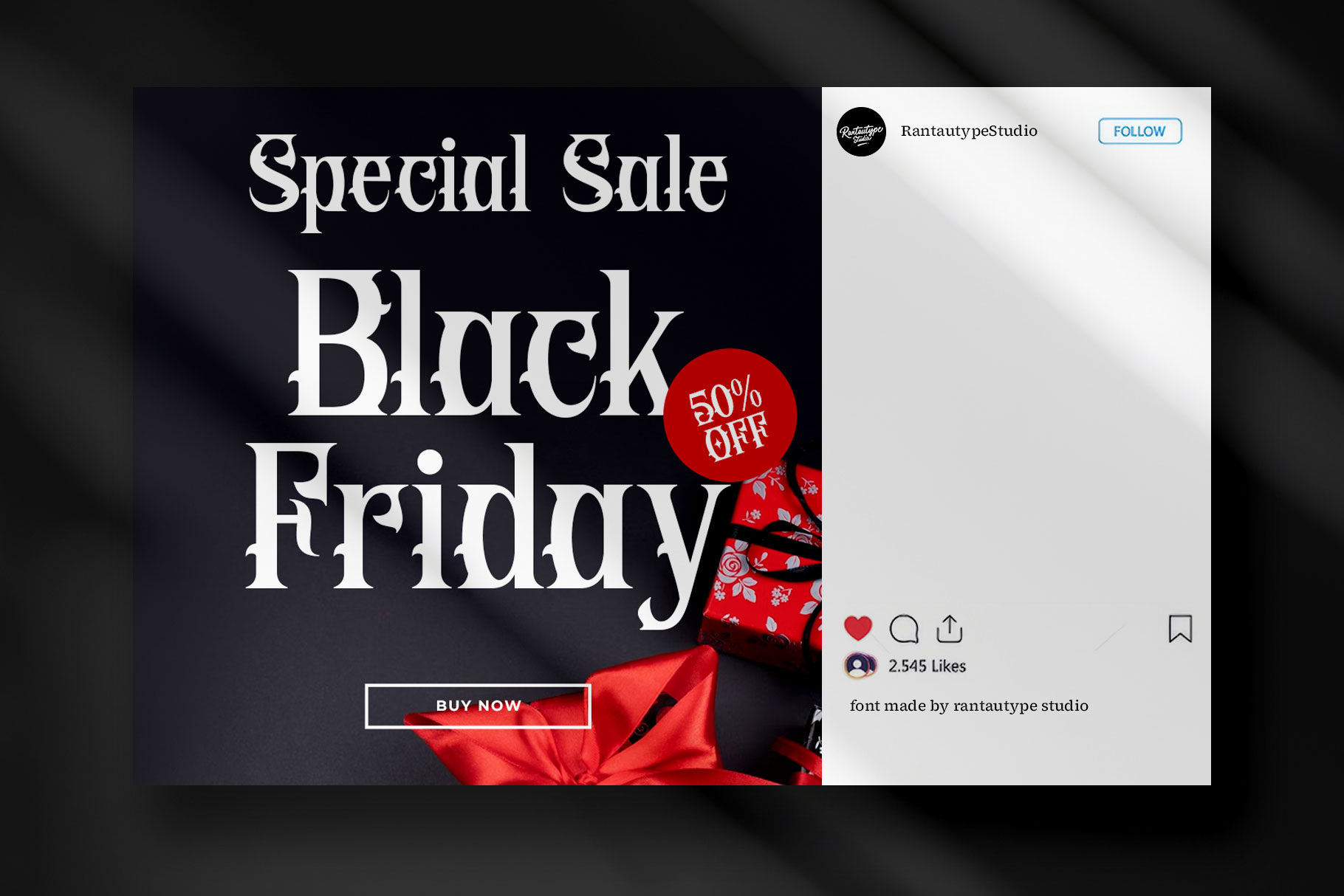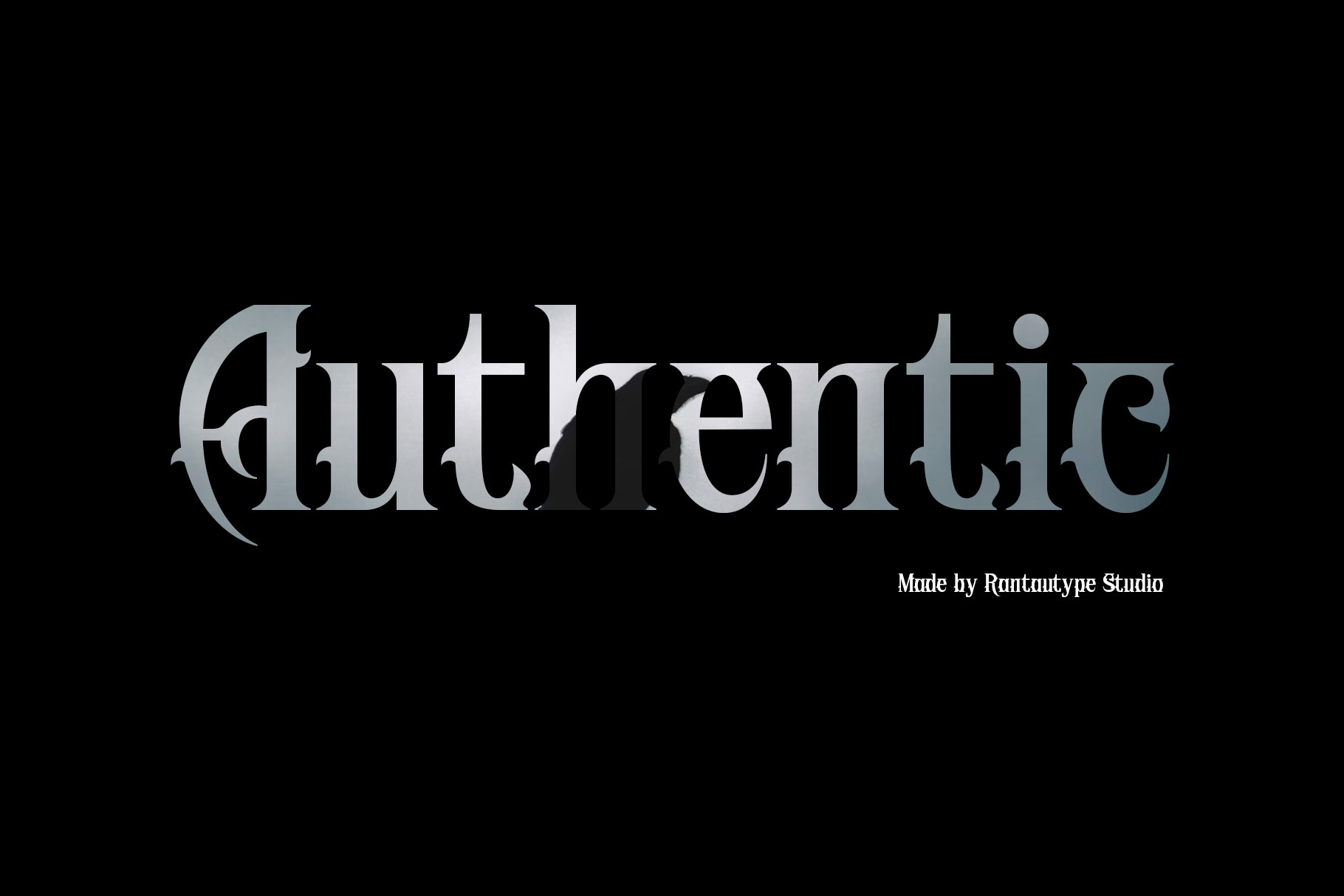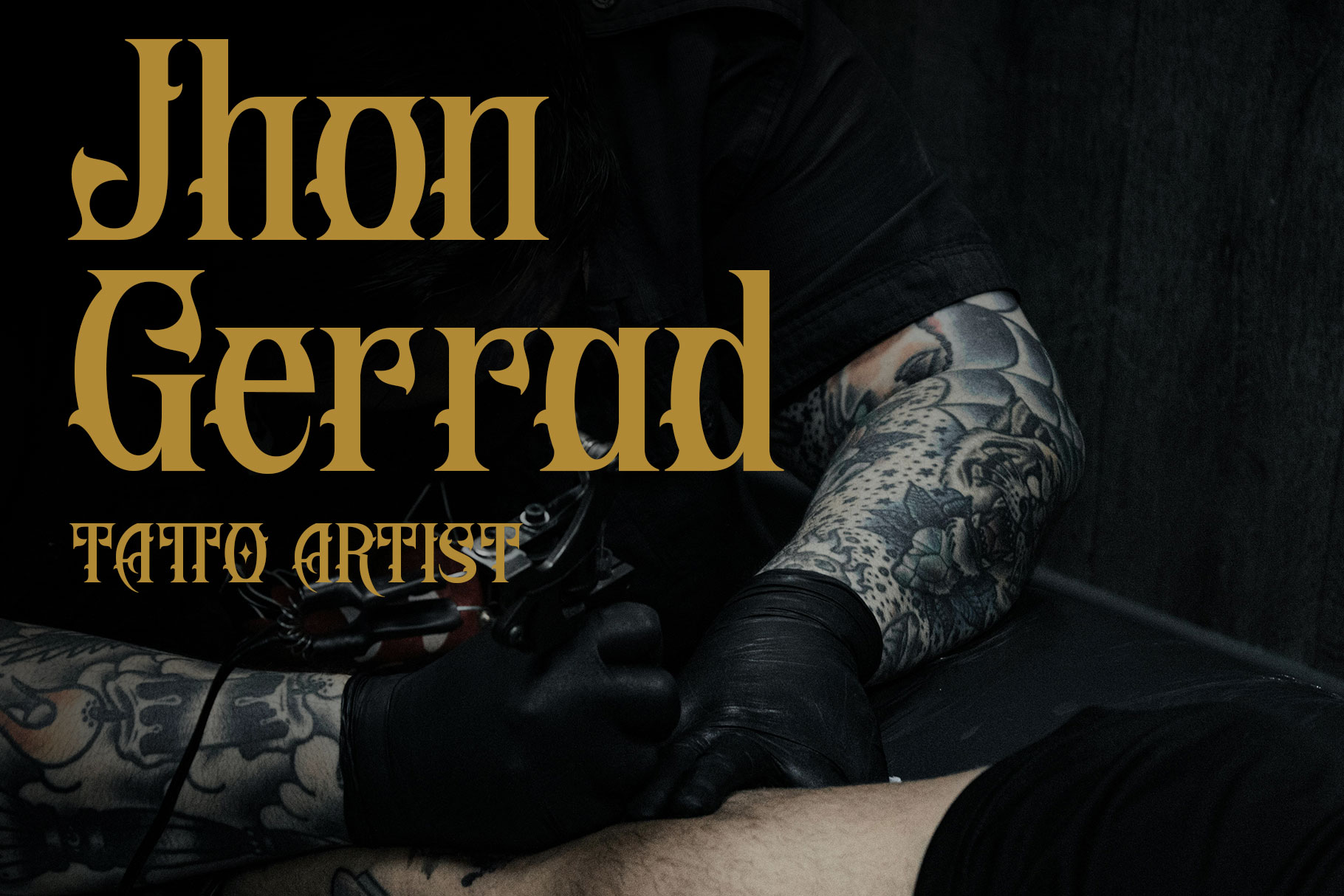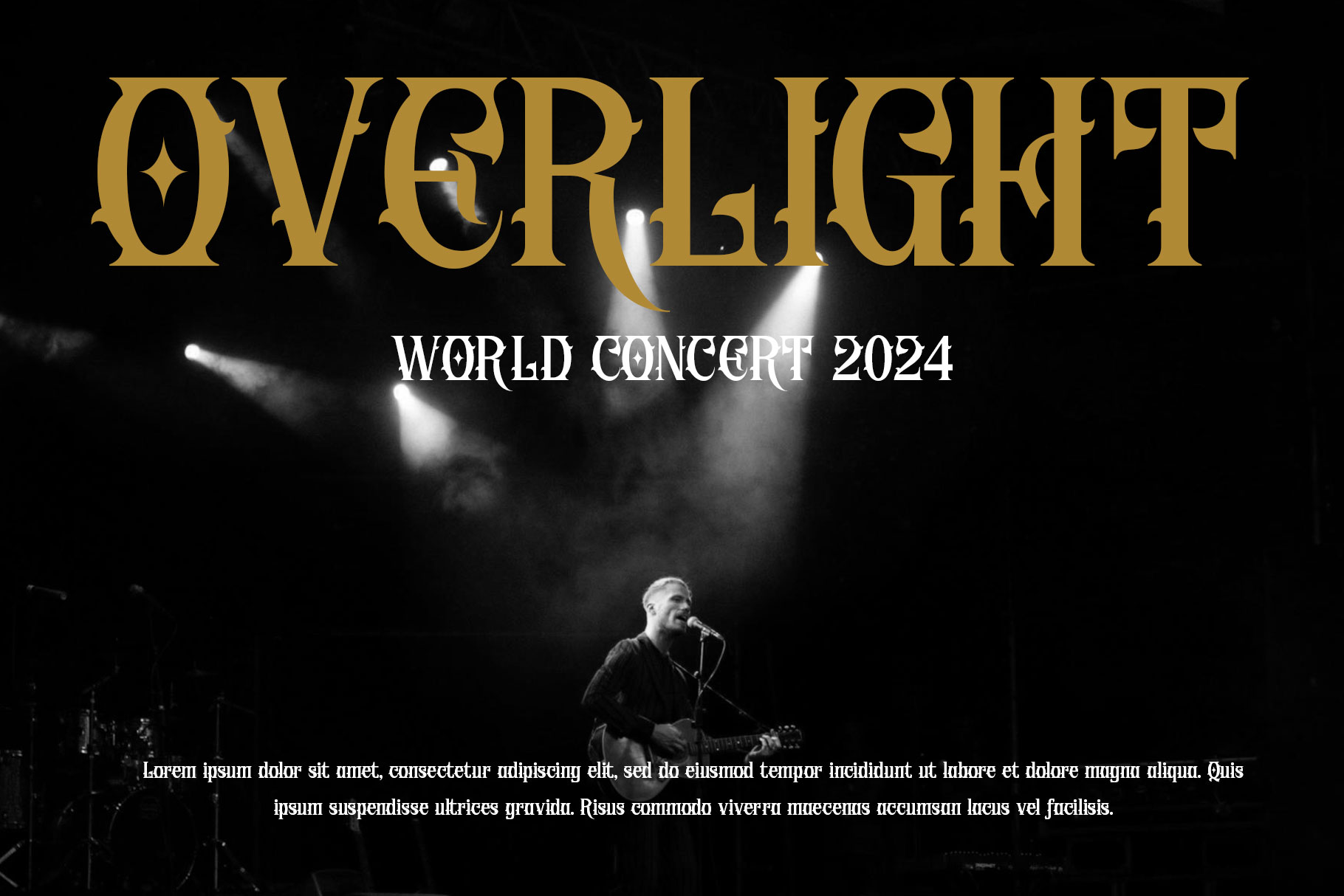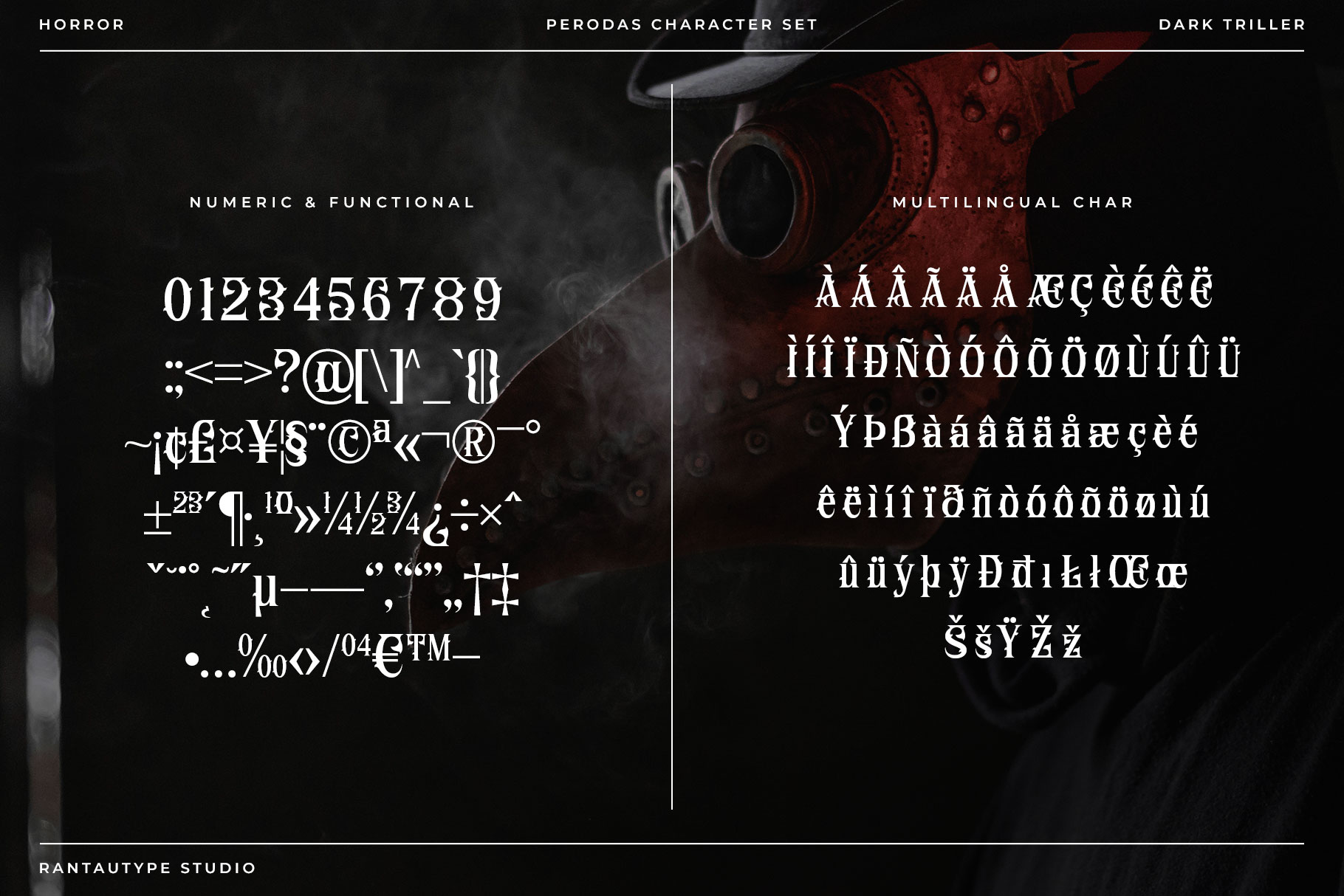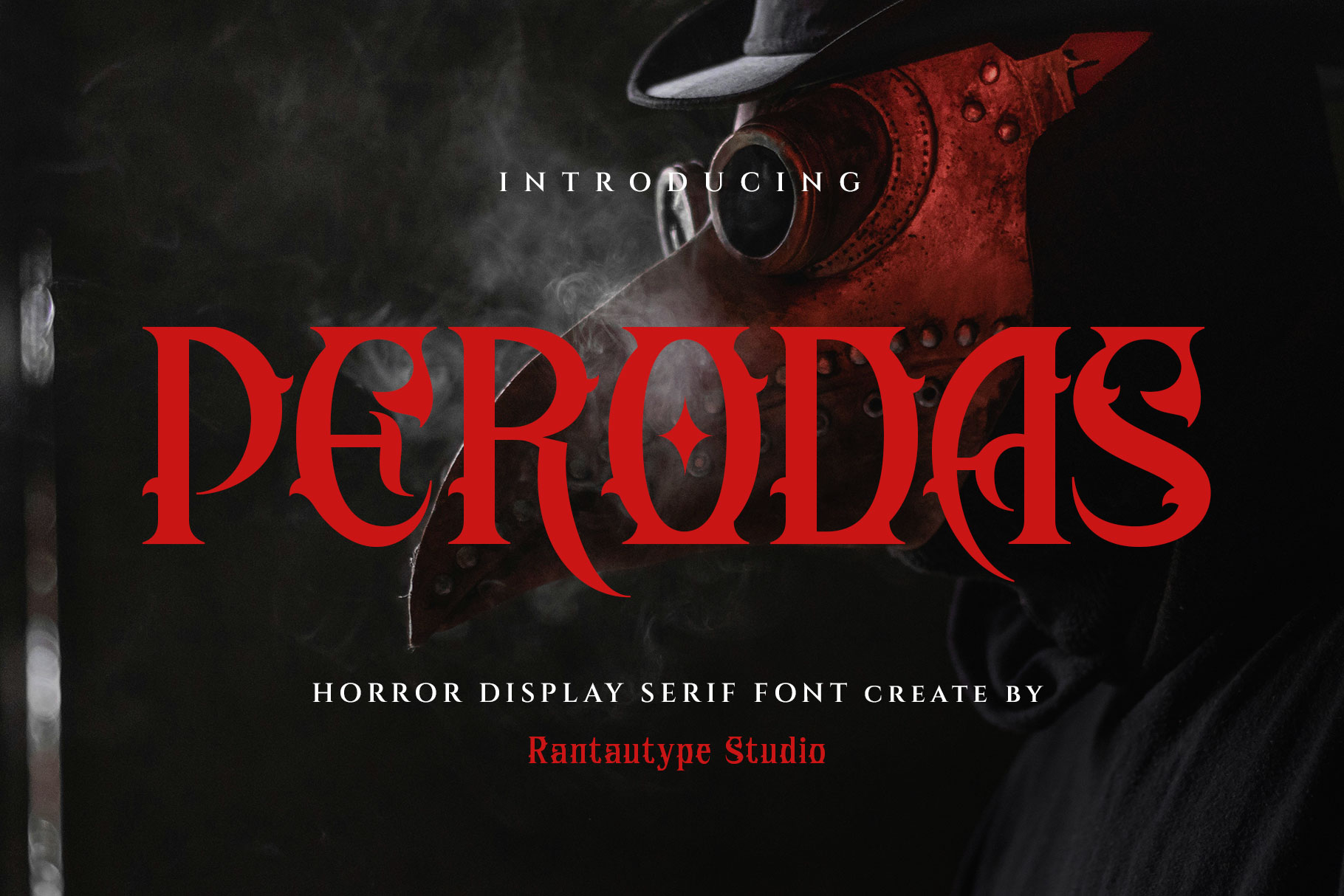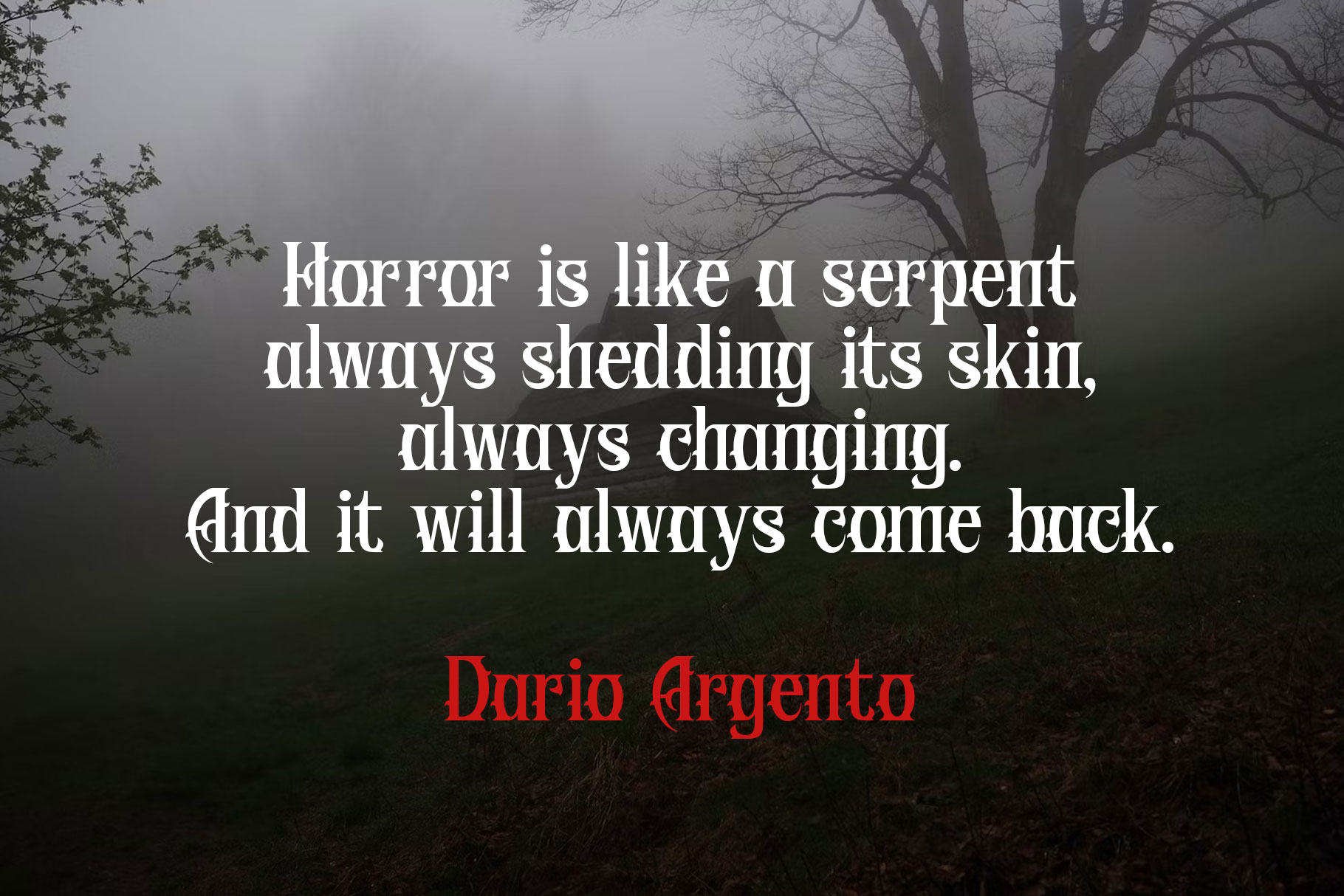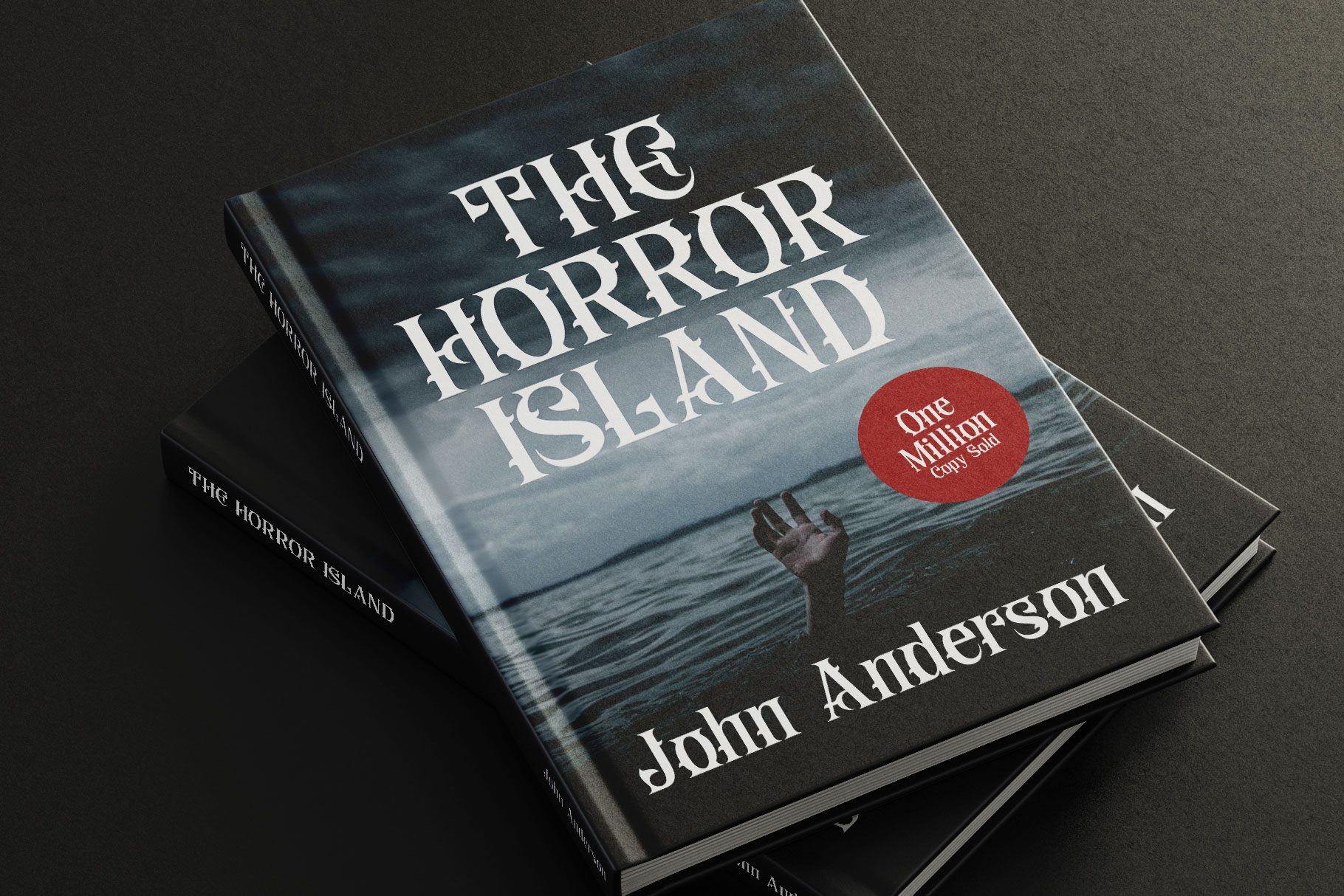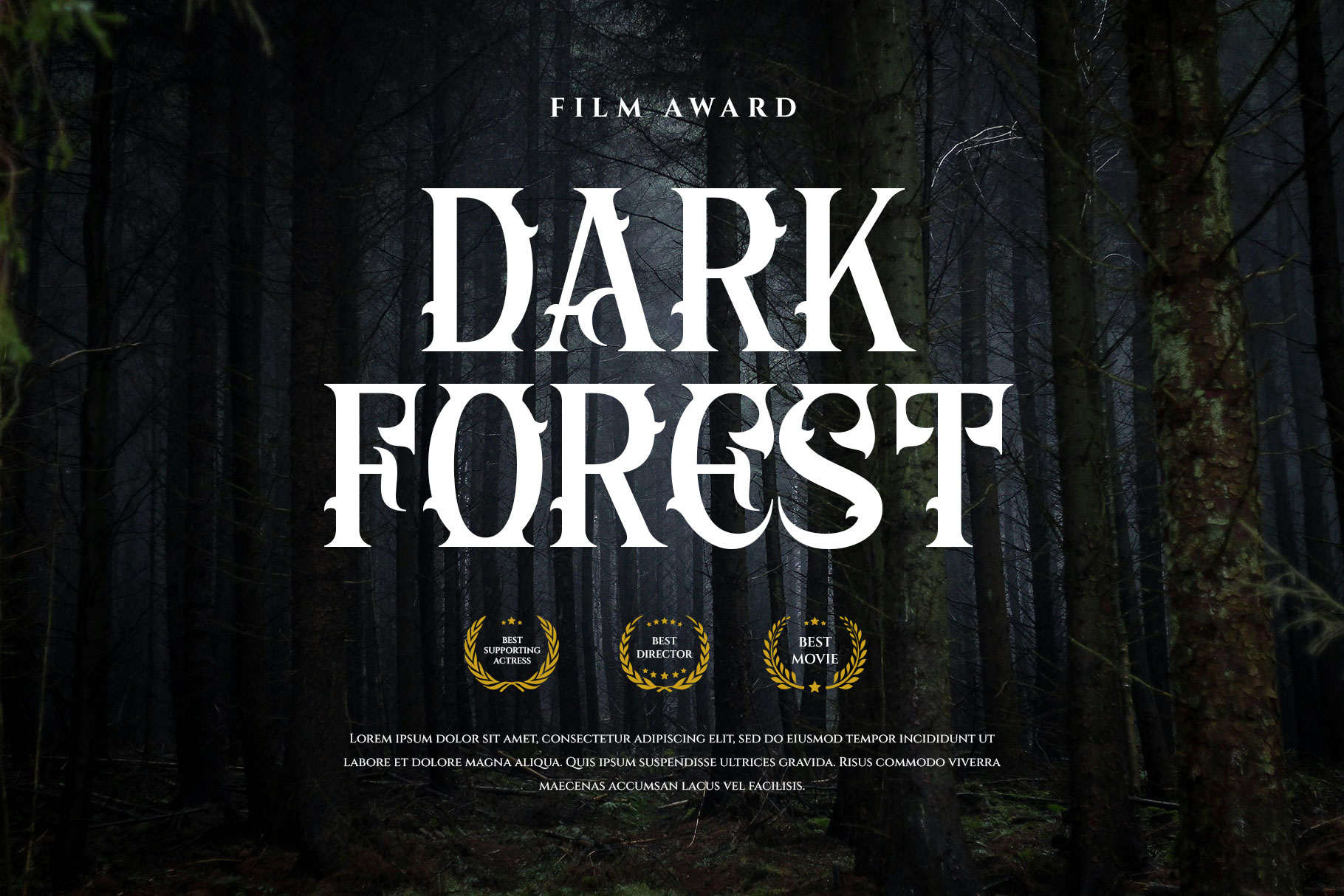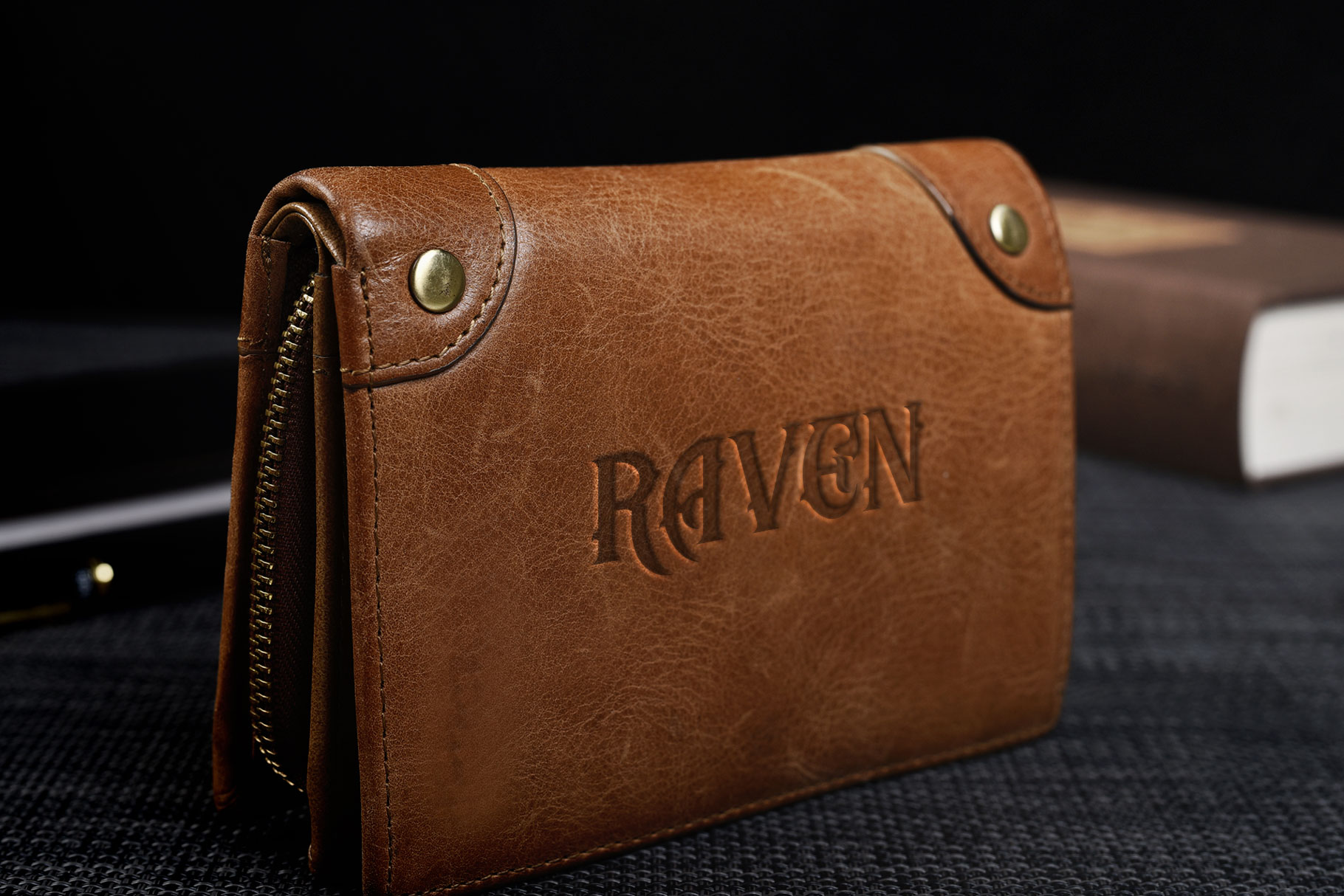
Perodas Horror Display Font
Perodas is horror decorative display font inspire from dark trailler visual design. Perodas bring you into new side about the darkness of the scary, mystery, horror and blood.
Perodas is a perfectly choice for any creative endeavor such as logos, advertisements, stationery, branding project, display and magazine, invitation, headline, corporate brand, product design, label, business project and many other project with horror or dark touch.